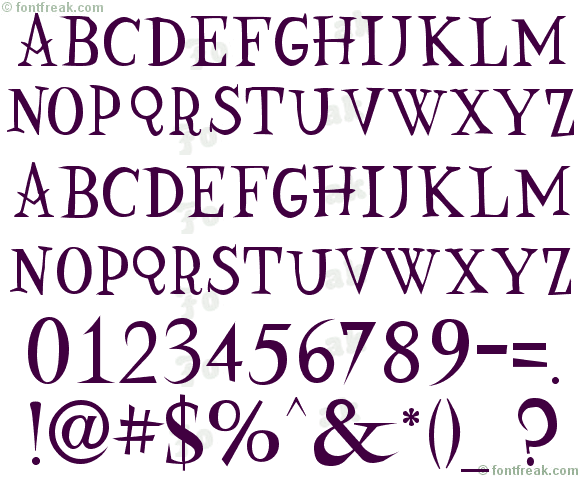
Nine
About Nine
Nine by Tribeca is a captivating display font that exudes a unique blend of modernity and classic appeal. Released in 1996, this freeware typeface features a distinctive design that sets it apart from more conventional fonts. As a display font, Nine captures attention with its bold, geometric shapes and playful letterforms. The stroke weight is consistent, providing a sturdy presence while maintaining a sense of elegance, and the moderate contrast adds depth without overwhelming the eye. The spacing between characters is well-balanced, ensuring readability while allowing the playful nature of the font to shine through.
Nine is particularly well-suited for a variety of creative projects. Its striking visual style makes it an excellent choice for trendy wedding invitations, where it can add a touch of sophistication and modern flair. Additionally, Nine is perfect for movie posters, lending a contemporary vibe that captures the essence of cinematic storytelling. Small business owners can utilize this font for restaurant menus, effectively communicating a sense of personality and style that aligns with their brand. Content creators will also find Nine invaluable for eye-catching social media graphics and promotional materials, helping them to stand out in a crowded digital landscape.
This font appeals to graphic designers and small business owners alike, making it a versatile tool for those looking to enhance their visual communication. The Nine font free download provides an accessible option for anyone wanting to incorporate its unique charm into their designs. What truly sets Nine apart is its ability to blend a playful aesthetic with a professional finish, allowing for creative expression without sacrificing clarity. Whether used for print or digital applications, Nine's distinctive character makes it a remarkable choice for any design project.